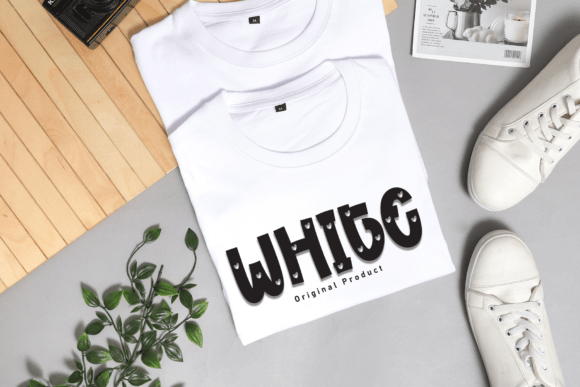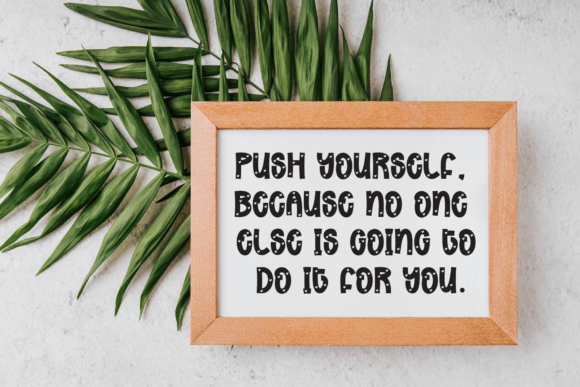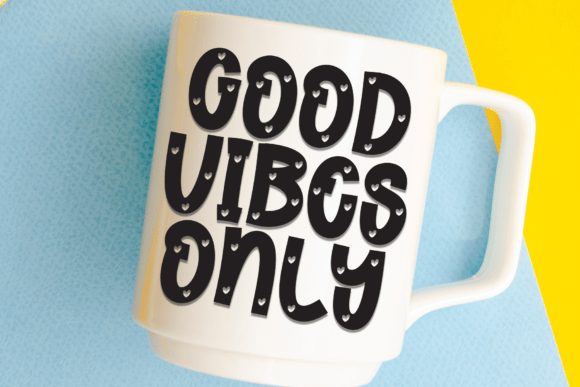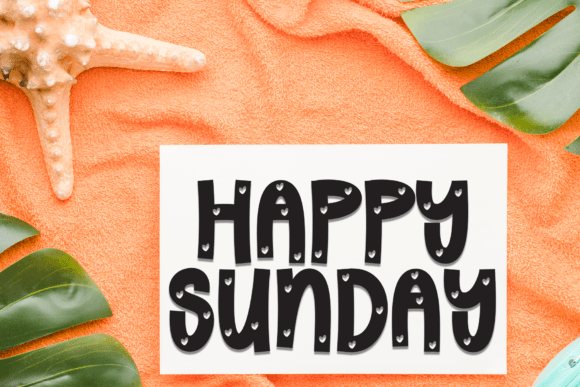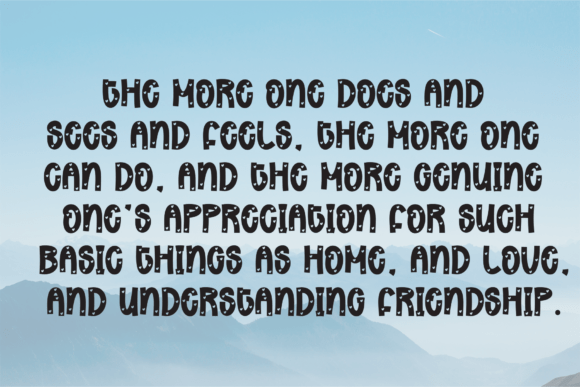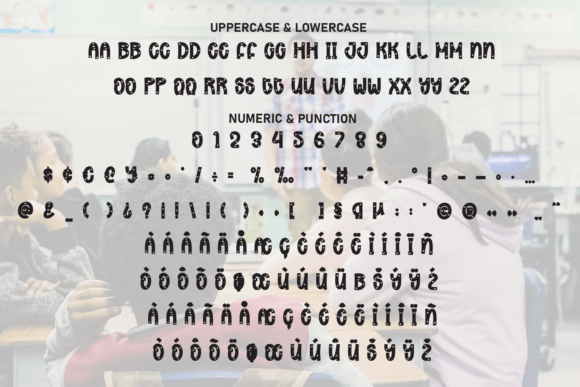
Introduction to Lovely Teacher Font Font
Fonts play a crucial role in design, and the Lovely Teacher Font font is a typeface that brings both character and versatility to any project. Whether you’re working on a branding project, a website, or a print design, the Lovely Teacher Font font offers a unique style that can elevate your work.
Introducing a charming and delightful handwritten display font that emanates a warm, welcoming vibe.
Exuding a playful yet elegant charm, this font adorns wedding invitations, cards, and countless other designs with a spark of whimsy If youβre seeking a novel way to infuse your design with a sense of joy and friendliness, this font offers the perfect solution.
Key Features of Lovely Teacher Font Font
Why Choose Lovely Teacher Font Font?
The Lovely Teacher Font font is more than just a typeface β it’s a design tool that helps you communicate your message with style and clarity. Its unique character set and versatile design make it suitable for a wide range of applications, from elegant invitations to bold headlines.
With its carefully crafted letterforms and balanced proportions, the Lovely Teacher Font font ensures readability and visual appeal across all mediums.
What makes Lovely Teacher Font font special?
The Lovely Teacher Font font stands out with its unique design, exceptional readability, and versatility across various design applications.